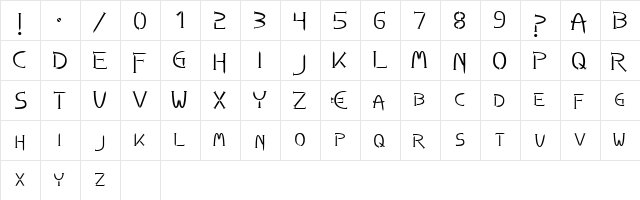
Nails Regular
Design Context for Nails Typeface
Nails is a composed and adaptable typeface that performs quietly and consistently across a wide range of design contexts.